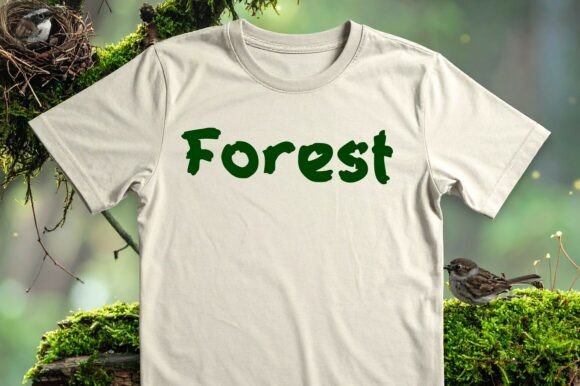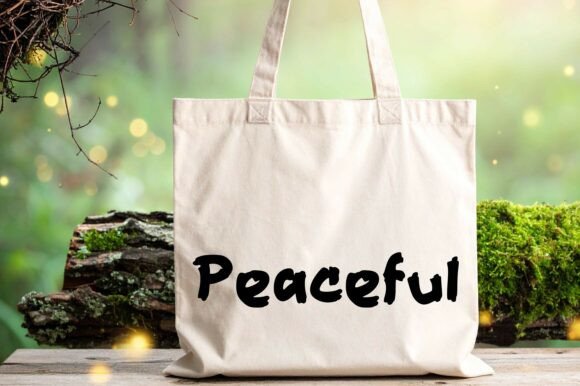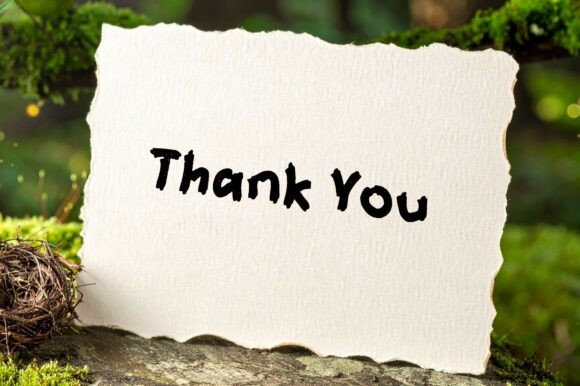
Discover the Timeless Charm of the Bird Nest Font
As a designer, you’ve probably had those moments when inspiration strikes, and you find yourself captivated by the intricate patterns and textures of nature. For me, it was a lazy afternoon spent in a forest, surrounded by the gentle rustle of leaves and the sweet songs of birds. The memory of that moment has stayed with me, and it’s what led me to the Bird Nest Font – an authentic display typeface that echoes the raw, natural beauty of the world around us.
The Bird Nest Font is designed to bring a sense of earthiness and warmth to any project. Its unique, hand-hewn strokes exude a sense of authenticity, making it the perfect choice for designers who value genuine, unpretentious designs. Whether you’re working on a sustainable application or simply want to add a touch of nature-inspired charm to your work, the Bird Nest Font is an invaluable tool in your creative arsenal.
Bird Nest Font Key Features
- Font Family: Bird Nest Font is a script font designed by Kim Algard, with a unique, handwritten feel.
- Unique Characteristics: Features a distinctive, hand-drawn look with varied line widths and subtle imperfections, giving it a personal touch.
Bird Nest Font Review
At first glance, the Bird Nest Font appears to be an elegant and whimsical script font. I was immediately drawn to its unique characteristics, which make it perfect for creative projects and designs that require a touch of personality.
- Unique and playful style: The Bird Nest Font has a distinct, handwritten feel that sets it apart from other script fonts.
- Excellent for creative projects: This font is ideal for designs that require a touch of whimsy, such as children’s books, invitations, and packaging.
- Highly customizable: The font has a wide range of OpenType features, making it easy to adjust and fine-tune the look to suit your needs.
- Not ideal for body text: The Bird Nest Font is best used for headlines, titles, and other decorative elements, as its readability can be compromised when used for large blocks of text.
- Requires careful kerning: The font’s unique shape and structure can make kerning a challenge, so be prepared to spend some time adjusting the spacing between characters.
Overall, the Bird Nest Font is a charming and versatile script font that can add a touch of personality to your designs. While it may have some limitations, its unique style and high level of customization make it a valuable addition to any designer’s toolkit.
Tips for Getting the Most Out of Bird Nest Font
Here are some tips for using Bird Nest Font effectively:
- Use it for headings and titles to add a touch of whimsy and elegance.
- Pair it with a clean and simple font for body text to create visual interest.
Bird Nest Font is commonly used for:
- Children’s books and educational materials.
- Whimsical and playful branding and marketing materials.